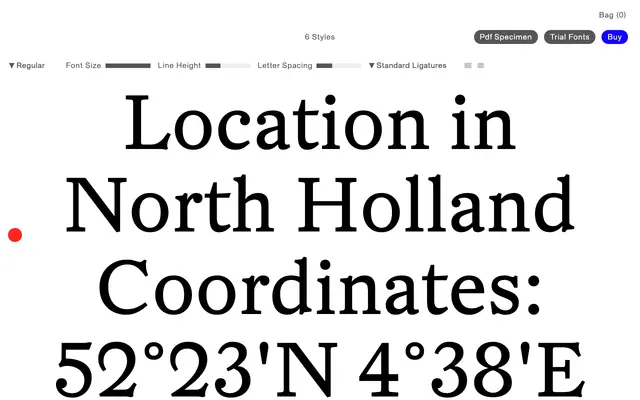
A three-weight serif from Edition Studio with matching italics, named after the Dutch city of Haarlem and suited to long-form text setting.
Available in Regular, Medium and Bold with accompanying italics, Haarlem offers six styles in total and includes a thorough set of OpenType features: old-style figures, tabular figures, discretionary ligatures, fractions, superscript, ordinals and a slashed zero. The specimen is set with extended passages of text about the city of Haarlem, placing the typeface firmly in the editorial and book-setting register. Its feature set suggests careful attention to typographic detail for continuous reading.
The specimen text and OpenType features suggest a text-oriented serif with classical proportions; the name references a Dutch city with a rich typographic heritage, consistent with a transitional or Dutch-style serif design.